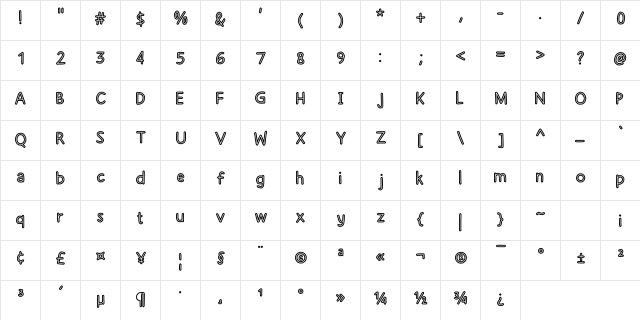
Chicken Bones Regular
| Designer | Nur Aisyah Amalia |
Design Context for Chicken Bones Typeface
Chicken Bones offers clean, dependable letterforms without strong stylistic allegiance, making it a practical choice for designers who need flexibility.